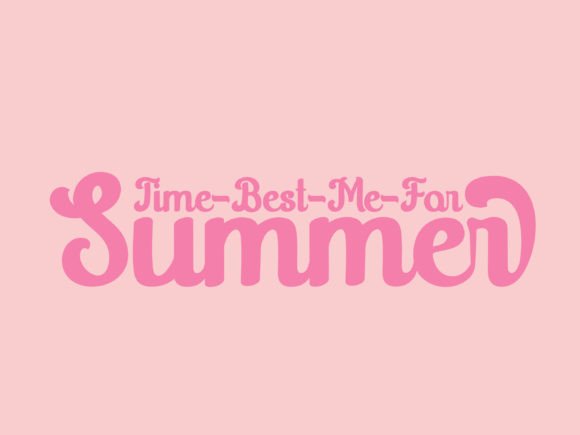
Retro Vintage Font
Retro Vintage script yourself back in time with a vintage-style handwritten font. Inspired by the typography be used for logos, branding, invitations, stationery, wedding designs, and social media posts, and this font adds a touch of classic charm to any design project.